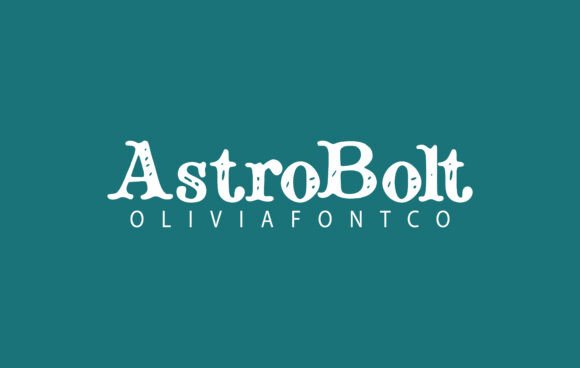
The AstroBolt Font: A Romantic Handwritten Treasure
A Personal Review of AstroBolt
As a designer, I can confidently say that AstroBolt has become one of my favorite fonts. Here’s what I love about it:
- ✨ Authentic handwritten feel: AstroBolt has a unique, organic look that adds a touch of warmth to any design.
- ✅ Legibility: This font is incredibly easy to read, making it perfect for both title and body text.
- 💕 Romantic touch: AstroBolt’s elegant strokes and curves evoke a sense of sophistication and whimsy.
While AstroBolt is an excellent font, it’s not without its quirks:
- 🤔 Limited character set: AstroBolt might not have an extensive range of characters, but it makes up for it with its beautiful design.
- ⚠️ Occasional kerning issues: As with any font, you might need to adjust kerning for optimal results.
- Experiment with OpenType features, such as stylistic alternates and glyphs, to add visual interest.
The Story Behind AstroBolt
While I couldn’t find any information on the designer’s inspiration, I imagine that AstroBolt was created with the intention of capturing the essence of romantic, handwritten typography. The font’s elegant strokes and whimsical touch evoke a sense of nostalgia and playfulness.
| What makes AstroBolt unique? | Its authentic handwritten feel and romantic touch set it apart from other fonts. |
| Is AstroBolt suitable for body text? | Yes, AstroBolt is legible and can be used for both title and body text. |